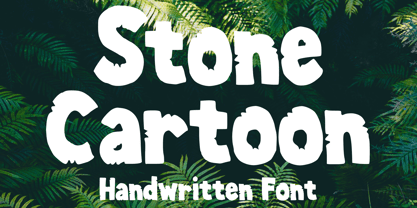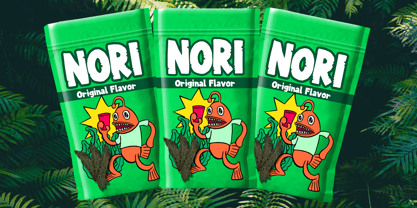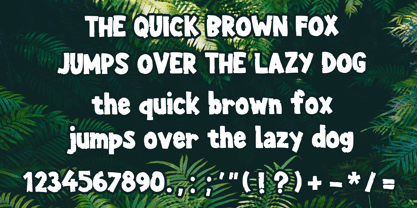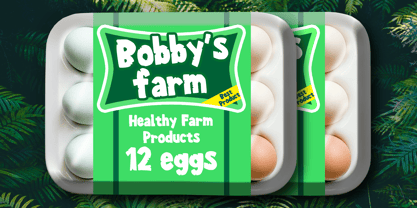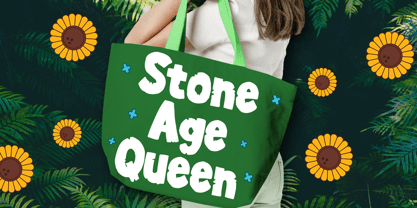
Stone Cartoon
by Mvmet
The Stone Cartoon Font Family was designed by Gabriel Valentinus and published by Mvmet. Stone Cartoon contains 1 styles. More about this family
Unearth your creativity with Stone Cartoon, a vibrant and playful display font that brings life to any project. Inspired by the whimsical cartoons of the Stone Age era, this font weaves nostalgia and charm into every stroke. Soft yet impactful, Stone Cartoon transitions seamlessly from designing t-shirts to crafting book covers, gracing greeting cards, or adorning posters and stickers. Its dynamic style is ideal for projects that require a strong yet welcoming touch. Explore the versatility of the Stone Cartoon font and let it transform your designs in a delightful way! Perfect for branding, web design, and editorial use, this font family offers a unique blend of fun and sophistication, making it a must-have for creative professionals.
Designers: Gabriel Valentinus
Foundry: Mvmet